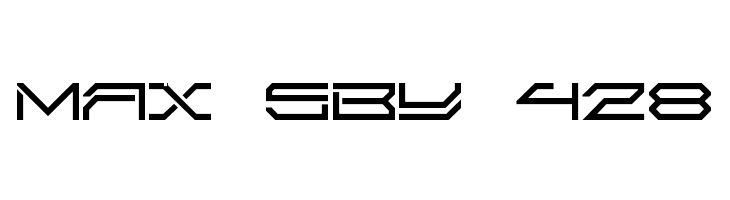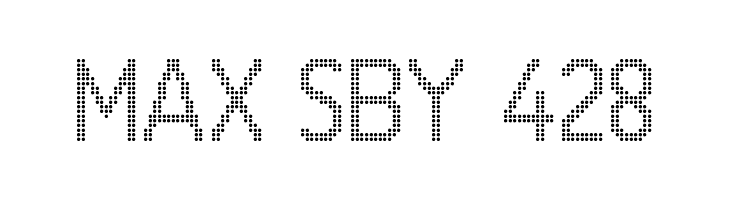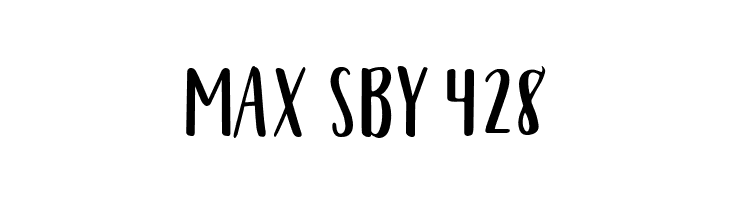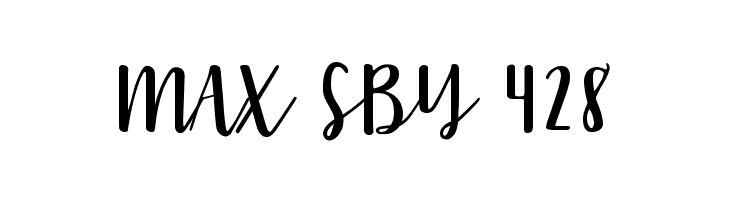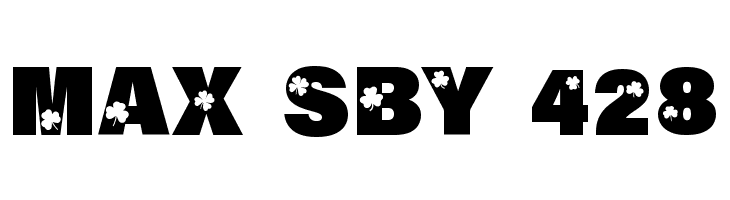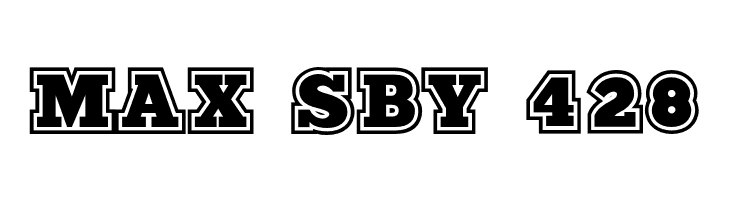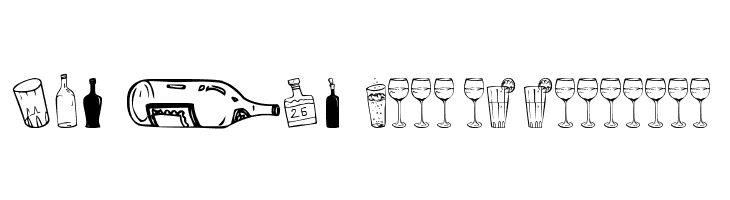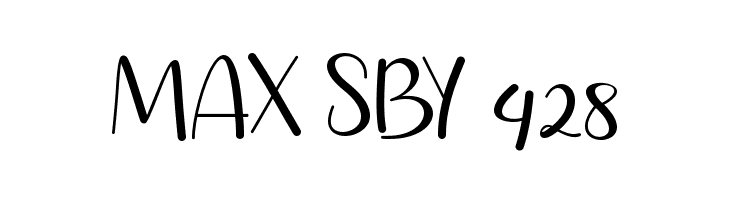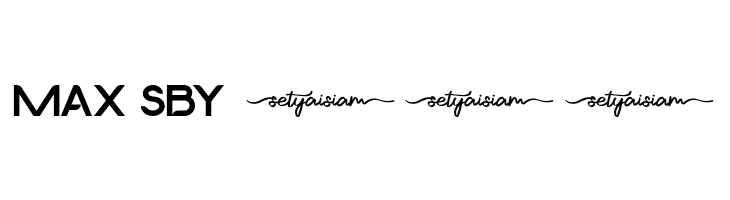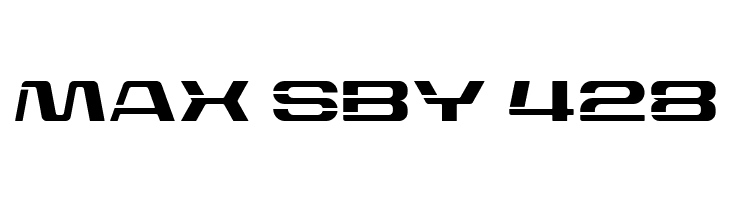
A collection of whimsical and abstract illustrations, not a traditional font.
A playful collection of doodle-like illustrations with a whimsical, childlike style.
A playful, rounded font with a friendly and approachable style.
A decorative icon font with bold, playful silhouettes representing diverse objects and activities.
A playful, handwritten-style font with smooth, rounded strokes.
A decorative icon font with feminine and playful motifs.
A playful, handwritten font with smooth, flowing strokes and a casual style.
A modern, geometric sans-serif font with clean lines and balanced spacing.
A bold, playful handwritten font with dynamic curves and a friendly style.
A playful, modern font with rounded, slightly condensed characters.
A bold, decorative font with shamrock motifs, perfect for festive themes.
A playful and elegant handwritten script font.
A playful, handwritten-style font with smooth curves and a casual appearance.
A bold, outlined font with a strong, impactful design.
A playful, handwritten font with medium contrast and dynamic slant.
A bold, rounded font with smooth, consistent strokes and a friendly appearance.
A modern sans-serif font with rounded edges and a clean, approachable style.
A modern, rounded font with a clean and friendly appearance.
A modern, ultra-light font with geometric shapes and rounded edges.
A modern, ultra-light, rounded font with a minimalist design.
A modern, ultra-light geometric font with a sleek and minimalistic design.
A bold, futuristic font with geometric shapes and strong presence.
A playful, modern font with rounded, bold uppercase and smooth lowercase letters.
A playful, bold font with rounded edges and a slightly condensed style.
A bold slab serif font with a strong, authoritative appearance.
A bold slab serif font with strong, block-like serifs and a robust design.
Bold, geometric sans-serif Japanese font with strong, clean lines.
A modern, geometric font with clean lines and a minimalist style.
A modern, geometric font with clean lines and balanced spacing.
A dot matrix style font with a digital and modern aesthetic.
A bold, rounded font with a modern and approachable style.
A futuristic, geometric font with sharp angles and a mechanical feel.
A decorative font with characters illustrated as various alcoholic beverages.
A bold, geometric font with modern and edgy characteristics.